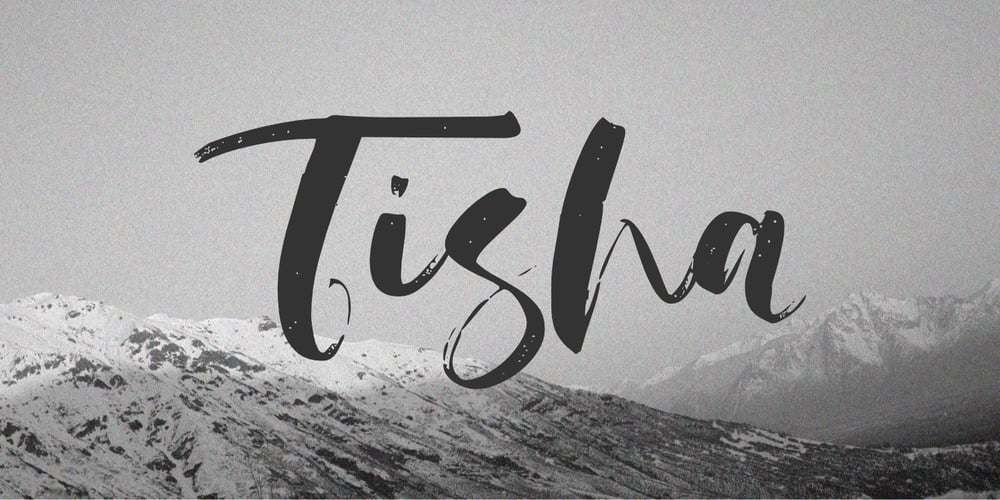
Tisha Font Family was designed by Aldy Sidik and published by Epiclinez. Tisha contains 1 styles and family package options. Tisha is an authentic brush display font. It has a bold, rough texture and as a result, it makes each of your creative designs stand out.So what’s included : Basic Latin A-Z & a-z Numbers, symbols, and punctuations Swashes and ligatures Accented Characters : ÀÁÂÃÄÅÆÇÈÉÊËÌÍÎÏÑÒÓÔÕÖØŒŠÙÚÛÜŸÝŽàáâãäåæçèéêëìíîïñòóôõöøœšùúûüýÿžß Thank you